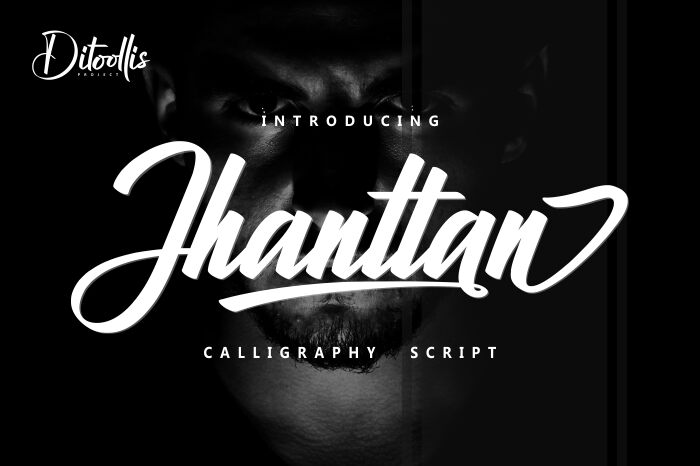
introduce "Jhanttan"
why do I give the name "Jhanttan", Jhanttan is taken from the word "Jantan" Which means male, but the man is more to the brethren, cool, and cool like this font, hhe ...
This font features uppercase, lowercase letters, punctuation, numbers, multilingual, ligatures, and alternates,